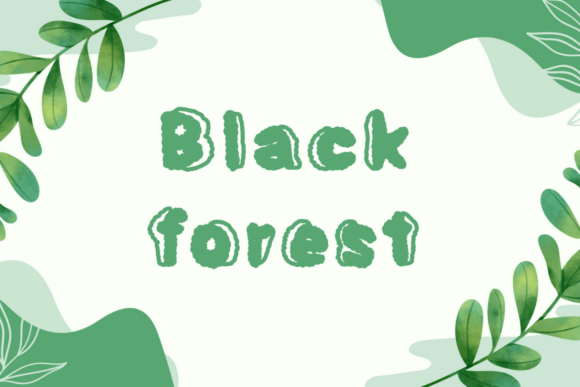
The Magic of Black Forest Font: Bringing Nature’s Charm to Your Designs
I’ll never forget the time I was working on a project for an eco-friendly client, and I just couldn’t find the right font to capture the natural, outdoorsy vibe they were looking for. I scrolled through page after page of Google Fonts, tried out a bunch of quirky display fonts, but nothing seemed quite right. That was until I stumbled upon Black Forest Font. Its bold, leafy shapes and rough edges immediately caught my eye, and I knew I’d found the perfect fit. In this article, I’ll share my love for Black Forest Font, its unique features, and how to make the most of it in your designs.
An Honest Review of Black Forest Font
• ✨ Unique, handmade look: Black Forest Font has a certain charm that’s hard to find in more polished fonts. Its imperfections and rough edges give it a natural, earthy feel that’s perfect for eco-friendly branding and DIY-inspired projects.
• ✅ Highly versatile: Whether you’re working on a children’s book, poster, product packaging, or social media graphics, Black Forest Font adapts seamlessly to different design contexts.
• 🌿 Inspired by nature: The font’s leafy shapes and organic textures evoke the beauty of the natural world, making it ideal for designs that need to convey a sense of freshness and sustainability.
While Black Forest Font is an amazing addition to any design project, there are a few things to keep in mind:
• 🤔 Legibility at small sizes: Due to its bold, textured design, Black Forest Font can become a bit tricky to read at very small sizes. It’s best used at larger sizes where its unique features can shine.
• ⚠️ Limited formal applications: This font is clearly designed for more playful, creative projects. It might not be the best fit for formal or corporate designs that require a more polished look.
One of the coolest things about Black Forest Font is its OpenType features. In Canva, you can access these features by using the font’s stylistic alternates. For example, you can use the font’s swashy alternates to add a playful touch to your headings.
The Story Behind Black Forest Font
Black Forest Font was inspired by the natural beauty of the forest, where organic textures and hand-drawn imperfections come together in perfect harmony. The designer, a nature lover and passionate typographer, wanted to capture the whimsical and rustic charm of the forest in a font that would bring a refreshing outdoor vibe to any design. With its bold, leafy shapes and rough edges, Black Forest Font is the perfect reflection of that vision.
Q: What type of projects is Black Forest Font best suited for?
A: Black Forest Font is ideal for eco-friendly branding, children’s books, posters, product packaging, social media graphics, and DIY-inspired projects.
Q: Does Black Forest Font support OpenType features?
A: Yes, Black Forest Font supports OpenType features, including stylistic alternates, ligatures, and glyphs. You can access these features in compatible design software like Adobe Photoshop or Illustrator.
Q: Is Black Forest Font suitable for body text?
A: While Black Forest Font is stunning for headings and titles, it’s not the best choice for body text due to its bold, textured design. For body text, consider using a cleaner, more legible font.